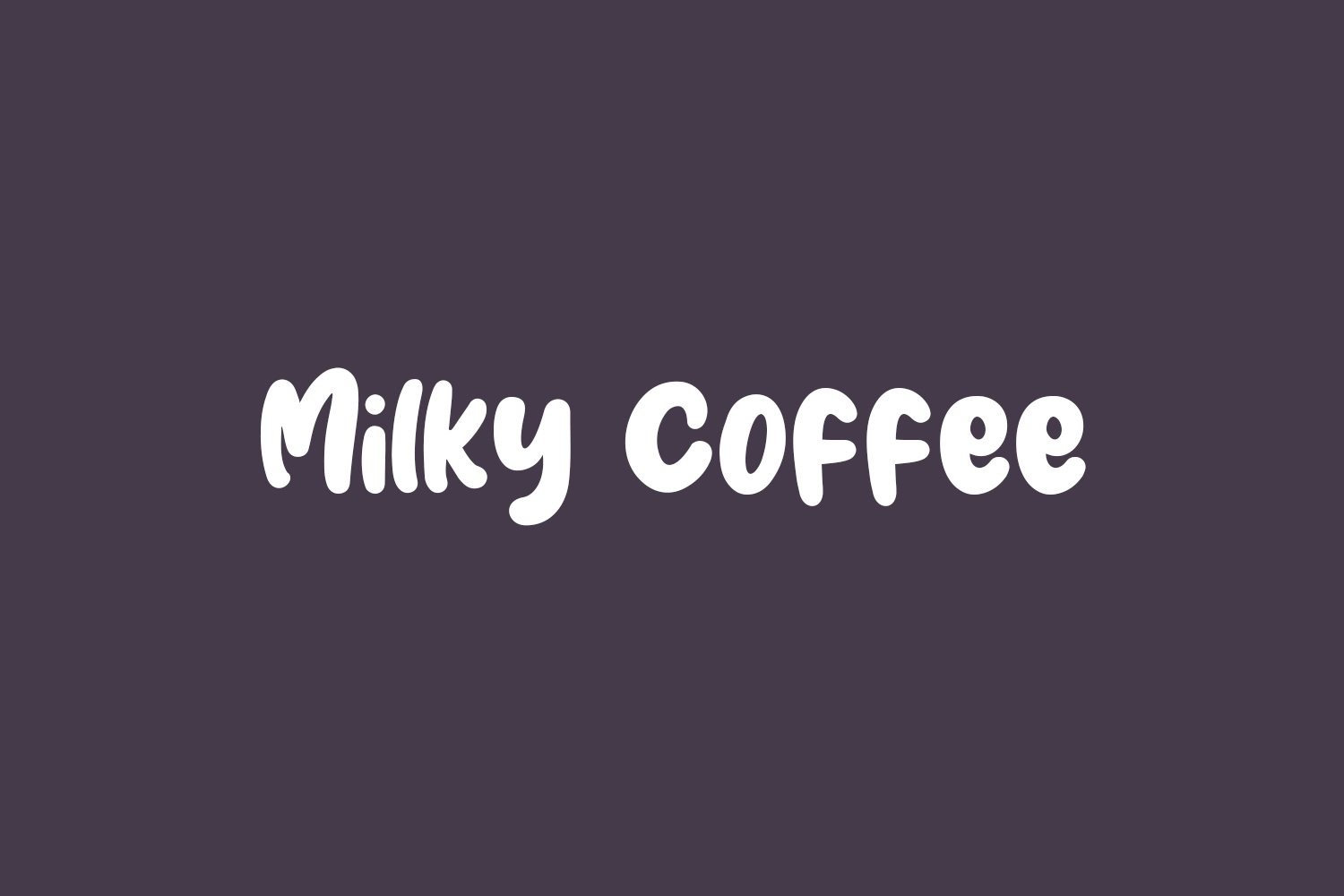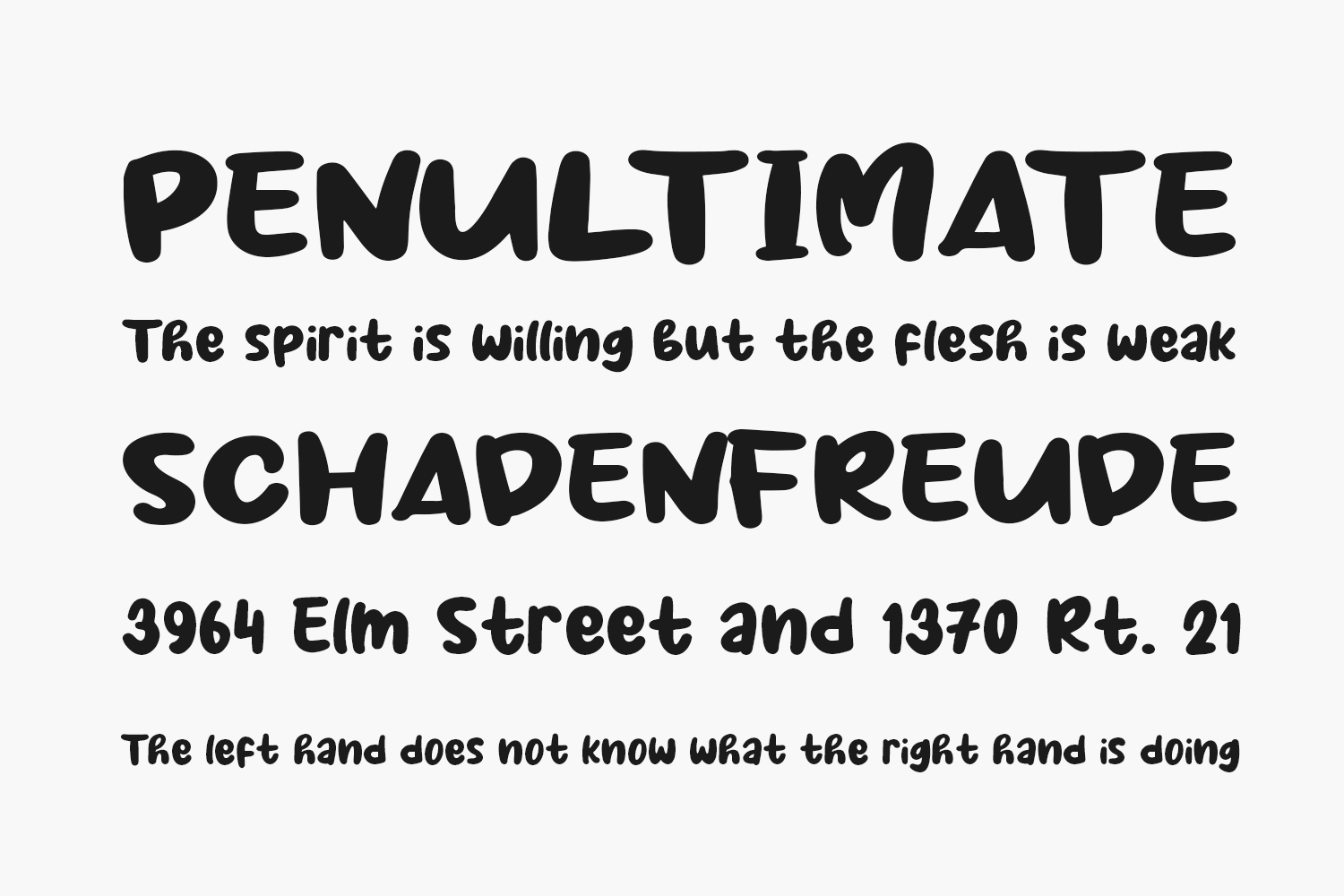
Milky Coffee Free Font is a modern and fancy display font perfect for posters, logos, magazines, book covers, banners, and many more! Get this amazing freebie, and use it to create lovely designs. Milky Coffee Free Font was designed by Khurasan and is free for personal use only. Please purchase the full version for commercial use.